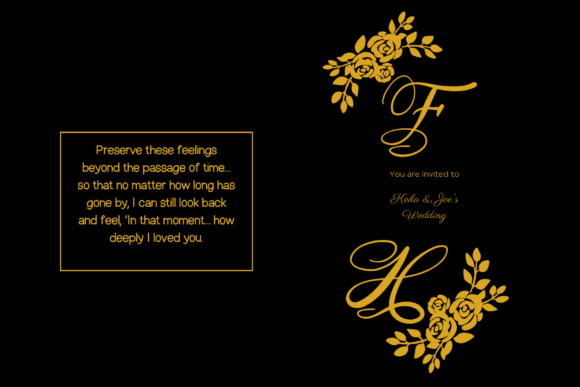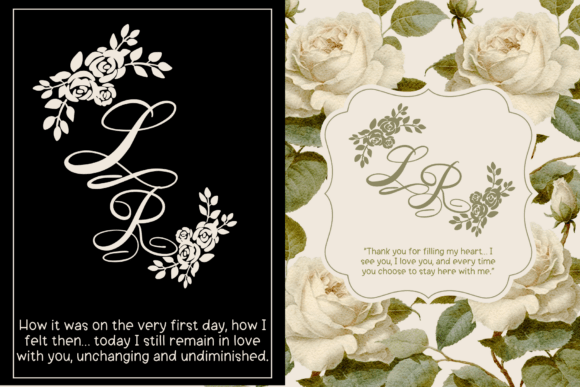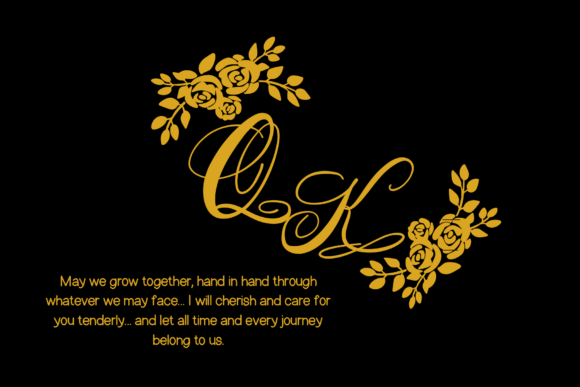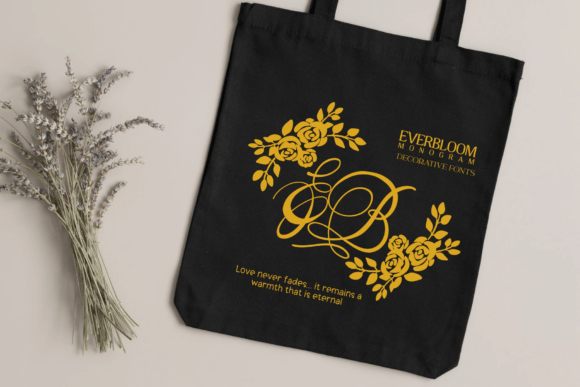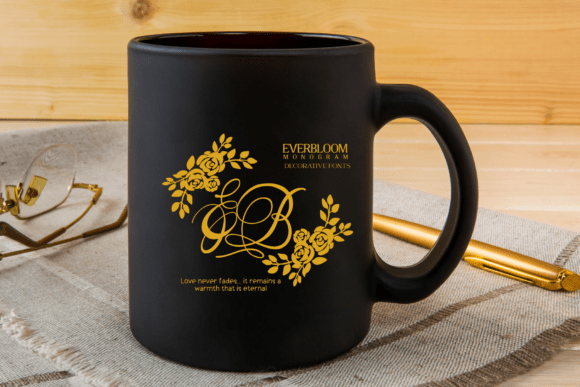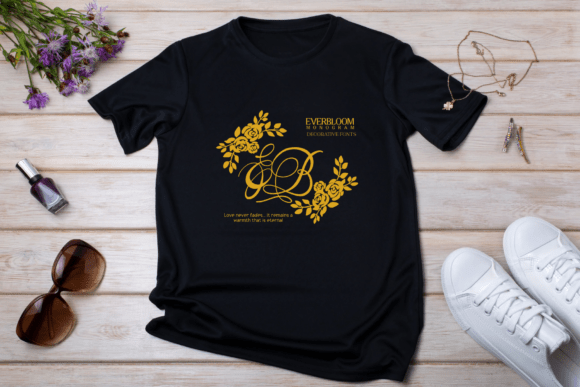
The Timeless Elegance of Everbloom Monogram Font
Have you ever been in the middle of a design project, and suddenly, you’re struck by a creative block? You’re not alone! I recall working on a wedding invitation project, and the font I was using just wasn’t cutting it. The design needed a touch of elegance, a dash of romance, and a whole lot of personality. That’s when I stumbled upon the Everbloom Monogram Font. It was love at first sight! 💕
A Font that Blooms with Love
Everbloom Monogram is a decorative font that masterfully blends the elegance of calligraphic strokes with timeless floral motifs. Each letter is adorned with blooming roses, symbolizing love that never fades, a warmth that remains eternal. This font is perfect for creating wedding invitations, romantic stationery, branding logos, luxury packaging, personalized gifts, and artistic decorations. Every character carries the essence of a promise – a memory preserved beyond time, making your design not only beautiful but also deeply meaningful.
Honest Review: The Good and the Great
So, what makes Everbloom Monogram Font so special? Let’s dive into the good stuff! 😊
- ✨ Elegant calligraphic strokes that add a touch of sophistication to any design
- ✅ Timeless floral motifs that bring a sense of romance and whimsy
- 💕 Perfect for wedding invitations, romantic stationery, and other special occasions
- 🎨 Highly versatile and can be used for branding logos, luxury packaging, and more
And, like any font, it’s not without its quirks. Here are a few things to keep in mind:
- 🤔 May require some experimentation to get the perfect combination of letters and floral motifs
- ⚠️ Some users may find the font a bit too ornate for certain design projects
A Practical Guide to Using Everbloom Monogram Font
The Story Behind Everbloom Monogram Font
The story behind Everbloom Monogram Font is one of love and inspiration. The designer, a romantic at heart, was inspired by the beauty of blooming roses and the elegance of calligraphic strokes. The result is a font that captures the essence of eternal love and timeless elegance.
| Font Name | Everbloom Monogram Font |
| Author | Sirinart |
| What is Everbloom Monogram Font? | Everbloom Monogram Font is a decorative font that blends elegant calligraphic strokes with timeless floral motifs. |
| What is Everbloom Monogram Font best used for? | Everbloom Monogram Font is perfect for creating wedding invitations, romantic stationery, branding logos, luxury packaging, personalized gifts, and artistic decorations. |
| Is Everbloom Monogram Font easy to use? | Yes, Everbloom Monogram Font is relatively easy to use, especially for those familiar with design software. However, some users may need to experiment with the OpenType features to get the desired effect. |